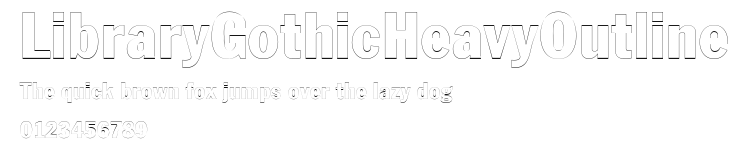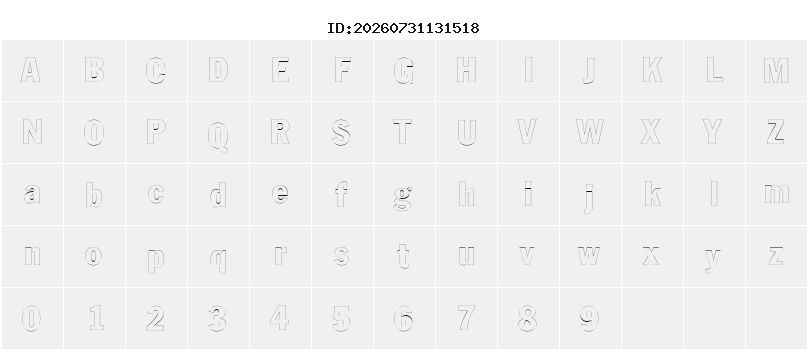
About LibraryGothicHeavyOutline.ttf
LibraryGothicHeavyOutline.ttf is a modern, elegant sans-serif font designed for ultimate readability and visual harmony. Perfect for branding, headlines, web design, and print materials.